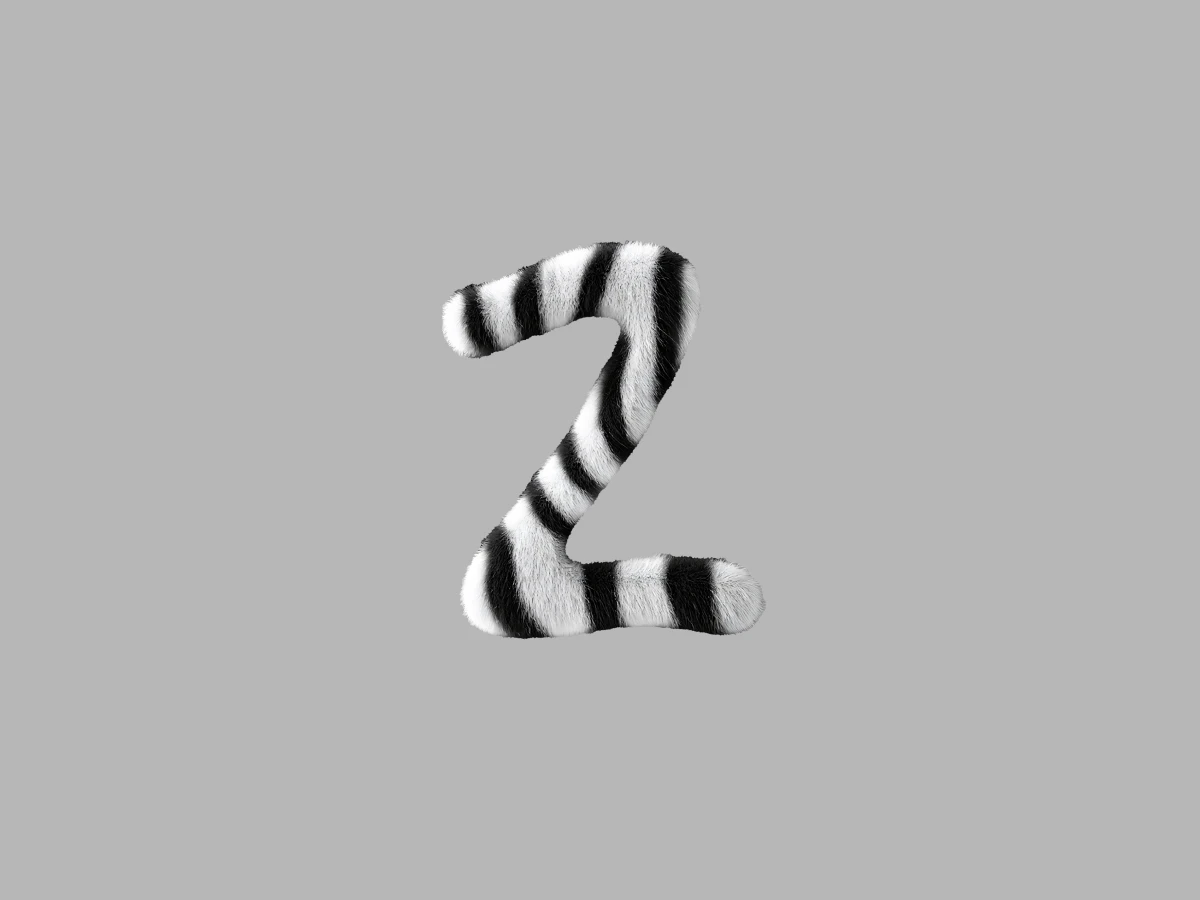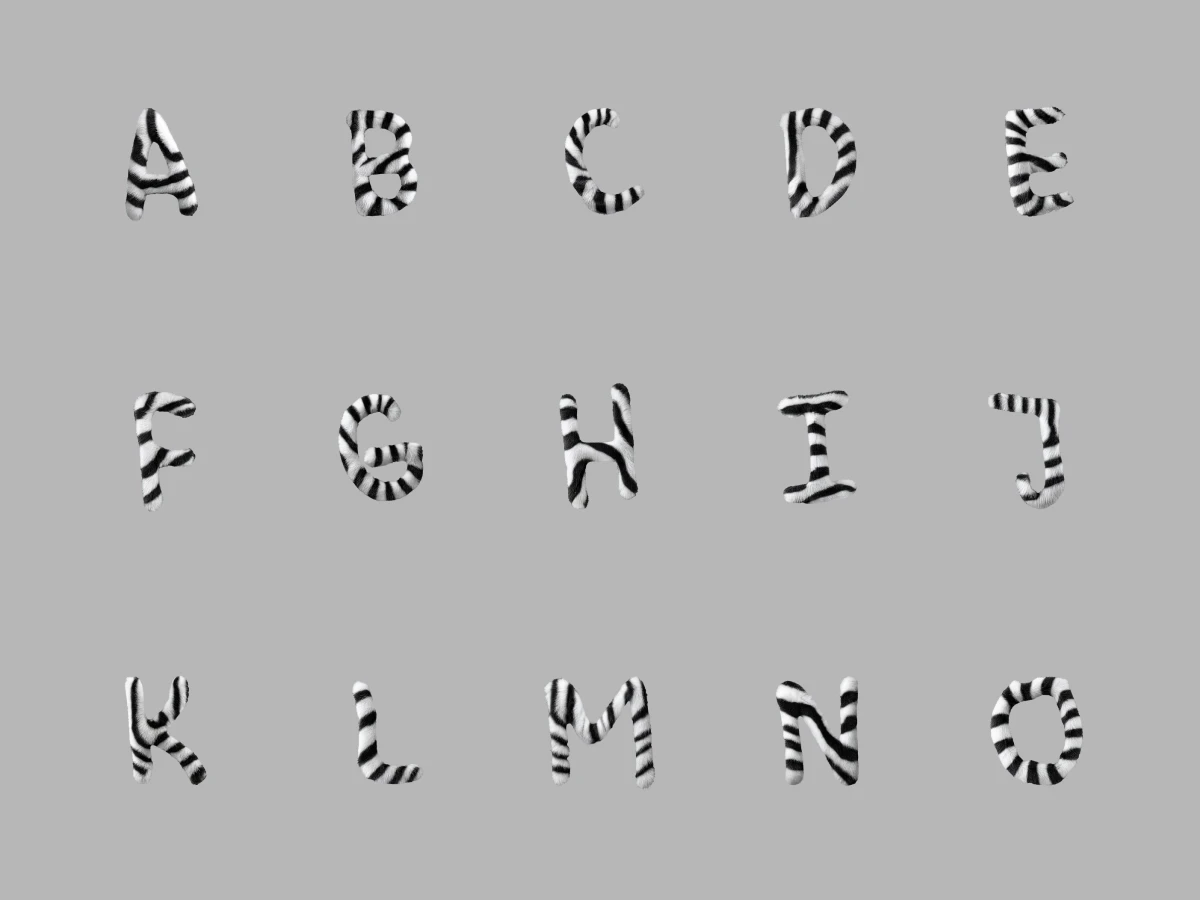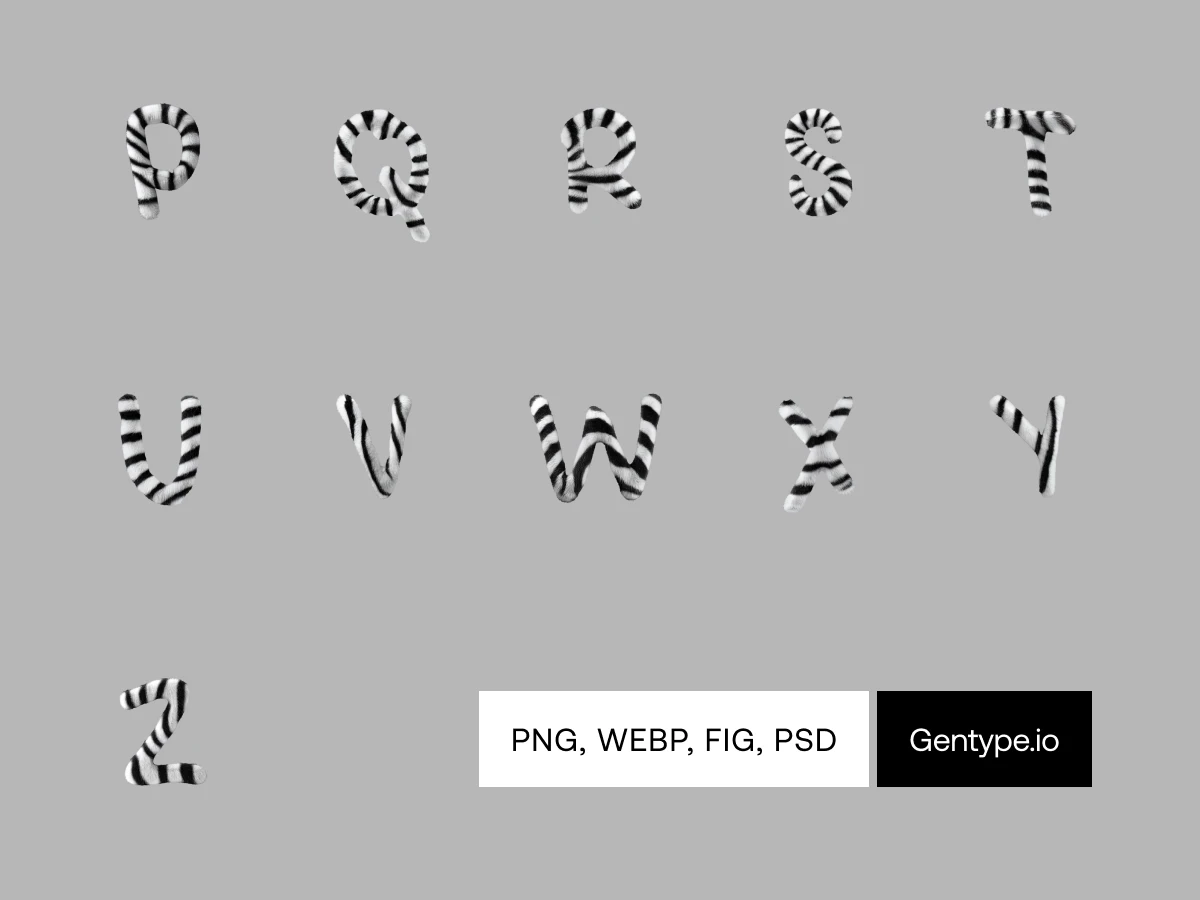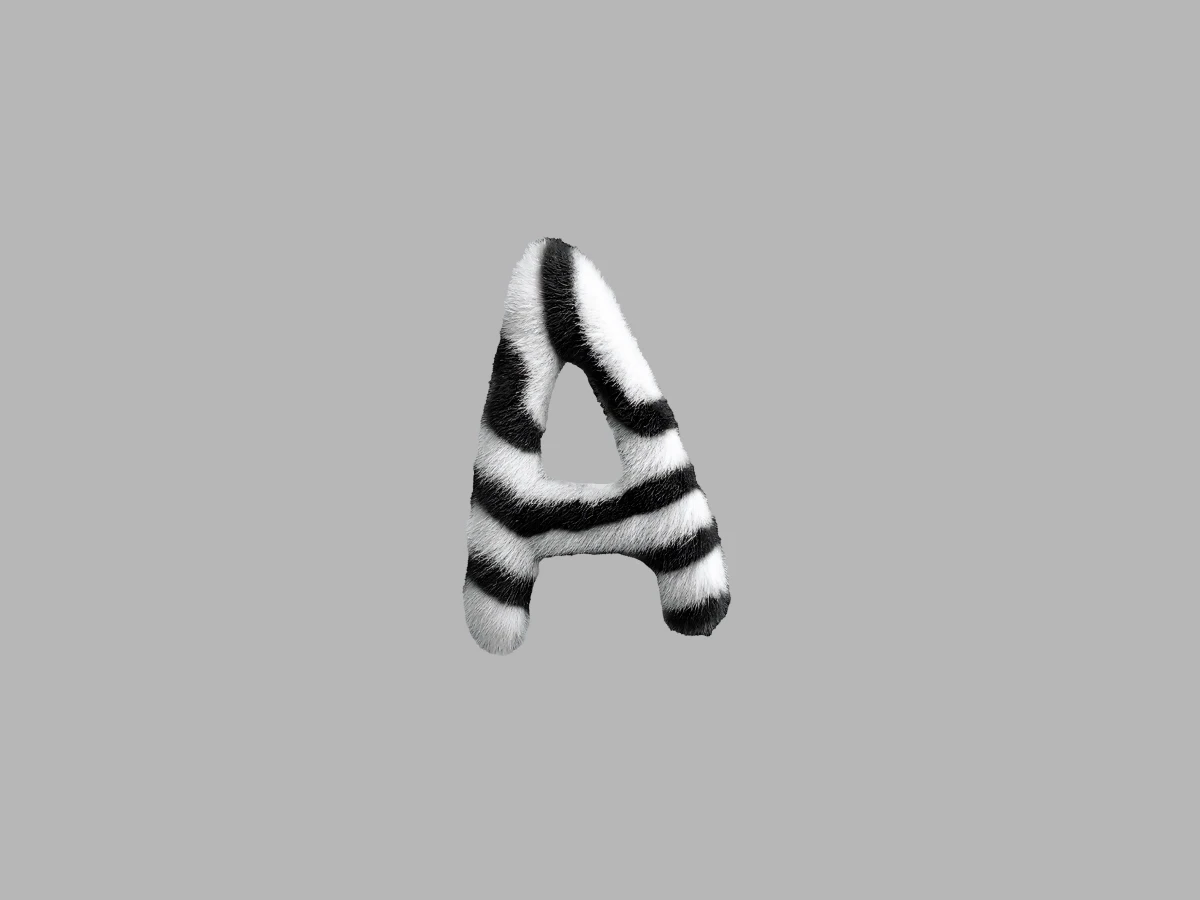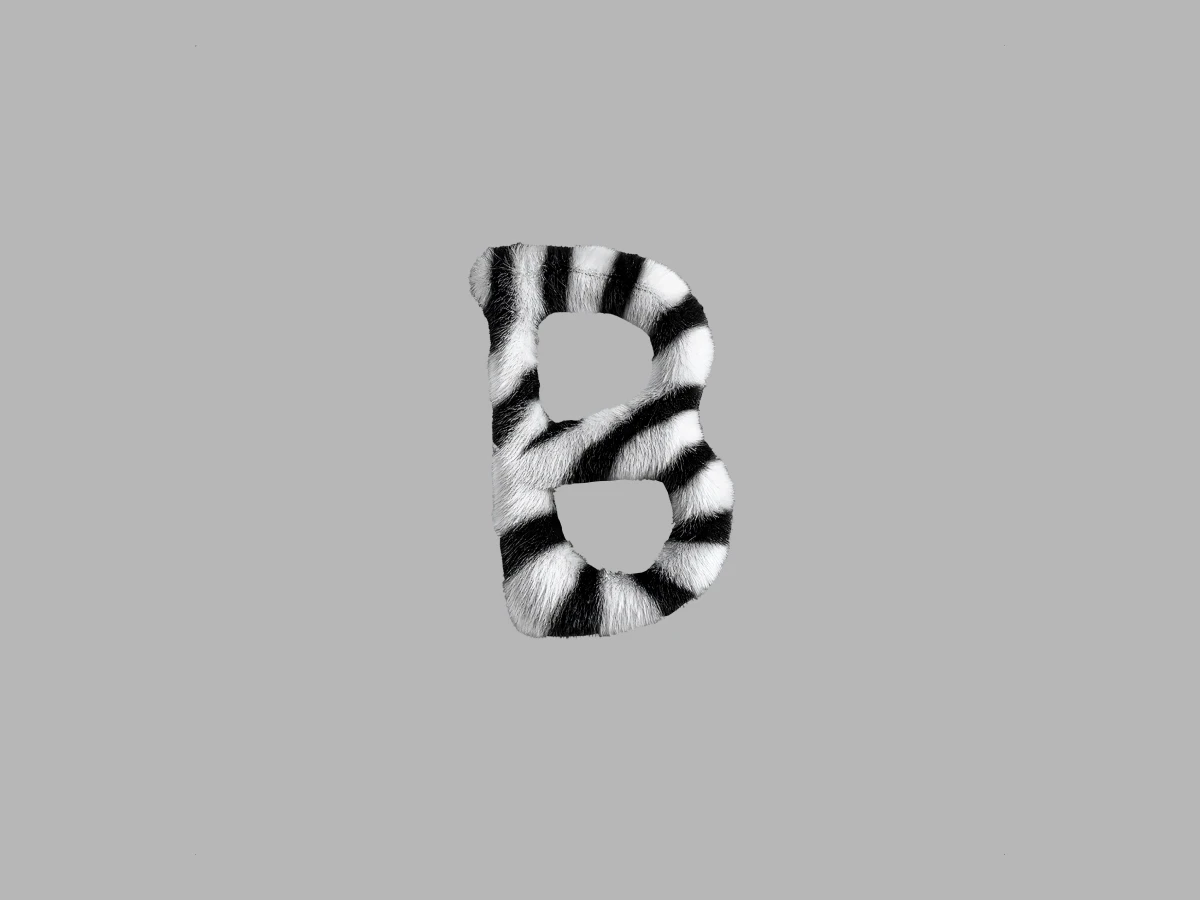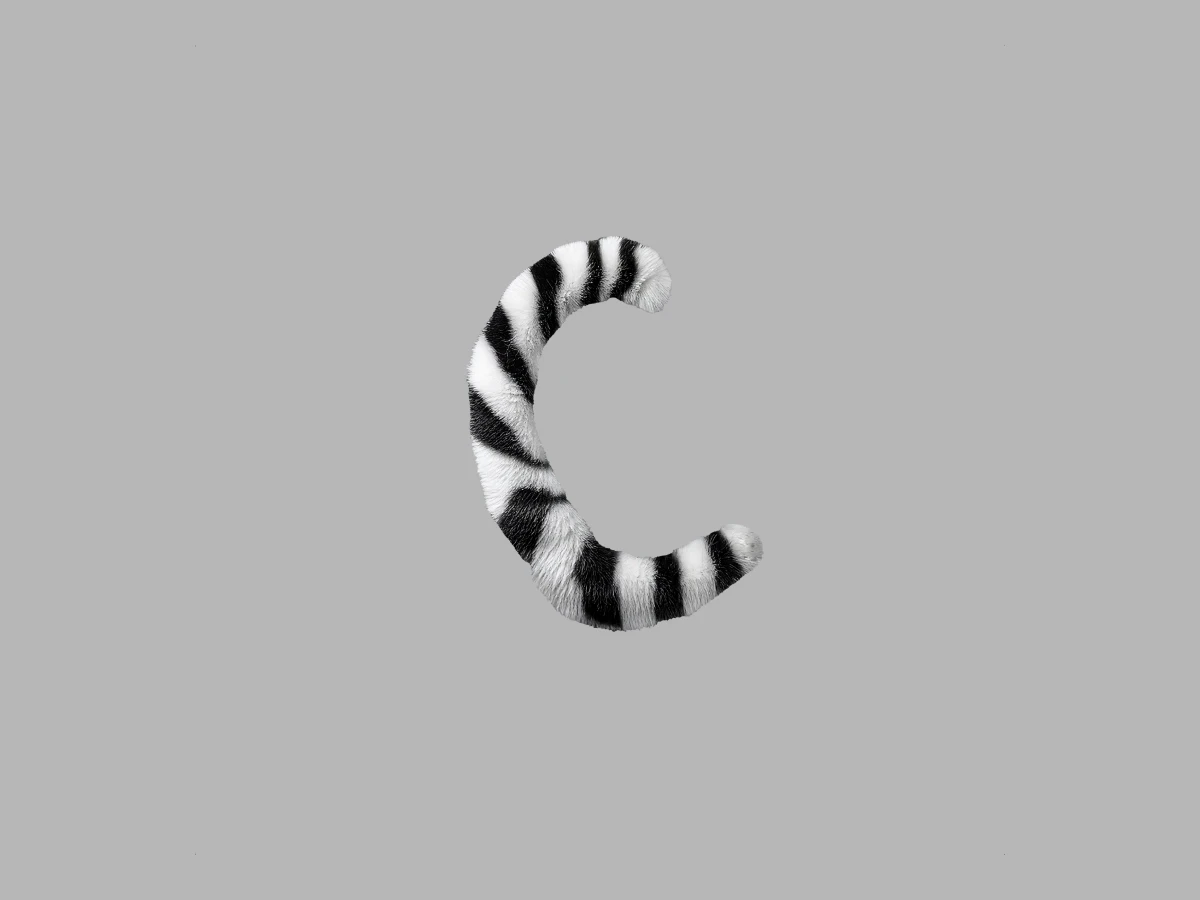
26 characters
Idea
About the theme
Bold, striking, and a little wild – Zebra Stripes brings the classic black-and-white pattern to your designs with a digital twist. No zebras were harmed in the making of these sleek stripes, but your creativity might run wild! Perfect for adding a touch of nature-inspired flair, this theme makes a statement while staying ethical. Ready to unleash your inner designer?